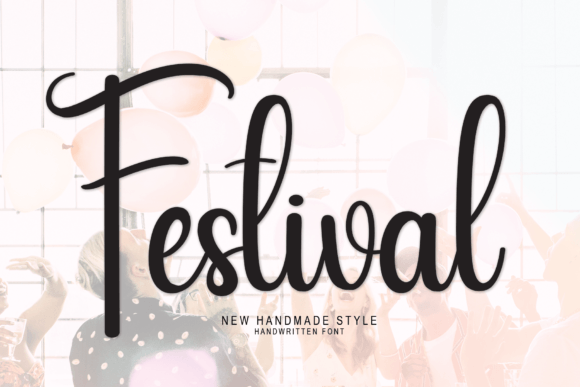
In a world of digital monotony, where words often fail to capture the essence of our emotions, there exists a font that dances like a celebration, a font that sings like a serenade, a font that paints pictures with its every stroke - Festival Font.
Meet Festival Font, the enchanting handwritten font that transforms your words into works of art. Its graceful curves and playful personality lend an air of elegance and warmth to any design. Whether you're crafting heartfelt wedding invitations, captivating social media posts, or eye-catching logos, Festival Font adds a touch of magic that leaves a lasting impression.
With its remarkable versatility, Festival Font effortlessly adapts to a myriad of creative endeavors. Its delicate strokes bring a touch of whimsy to branding projects, while its strong character shines through in posters and flyers. It's a font that speaks volumes, even in silence, conveying messages of love, joy, and celebration with each letter.
Experience the transformative power of Festival Font and let your creativity soar. Its versatility knows no bounds, making it the perfect choice for designers, bloggers, and anyone who seeks to add a touch of individuality to their digital creations. Unleash the magic of Festival Font today and embark on a typographic journey unlike any other!